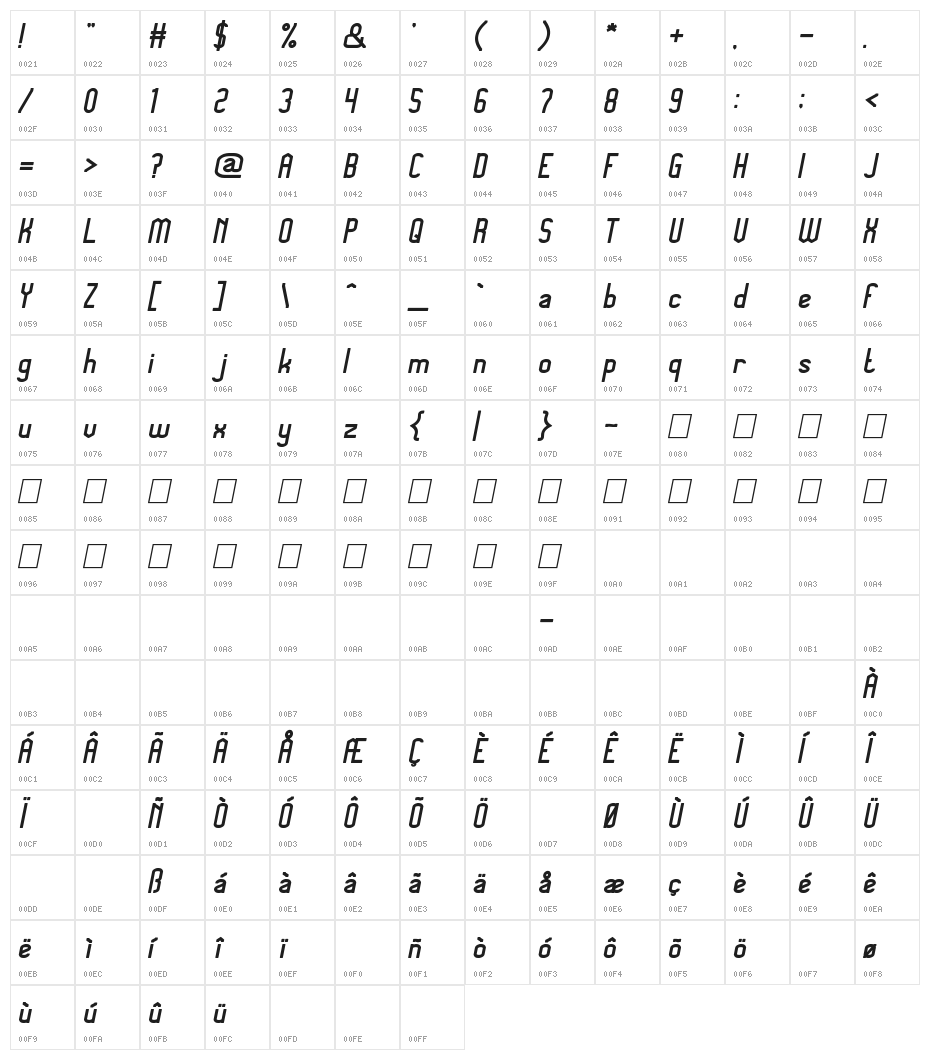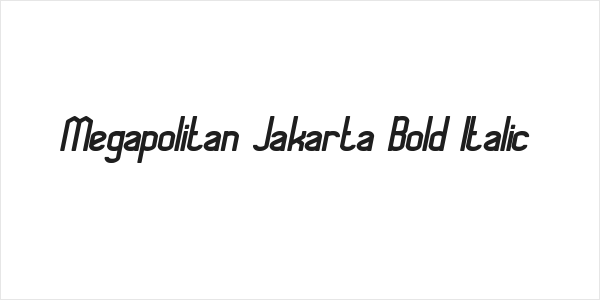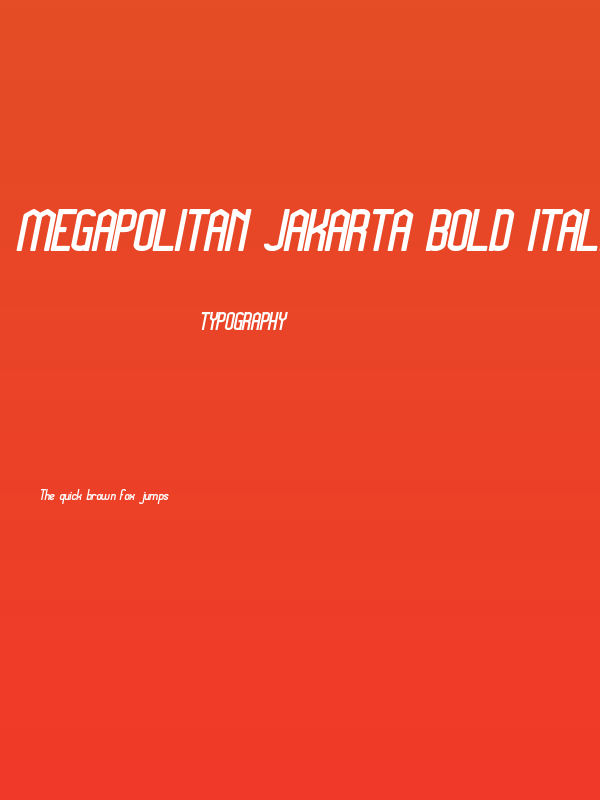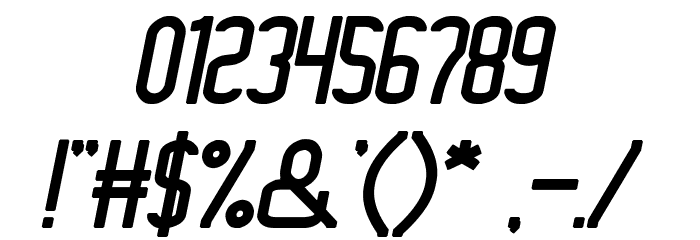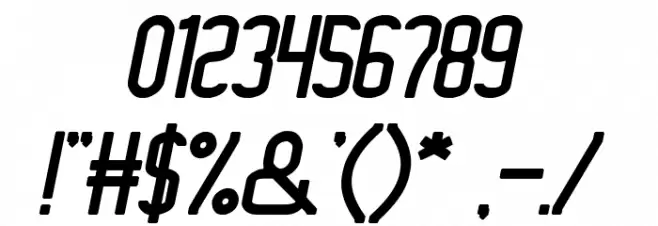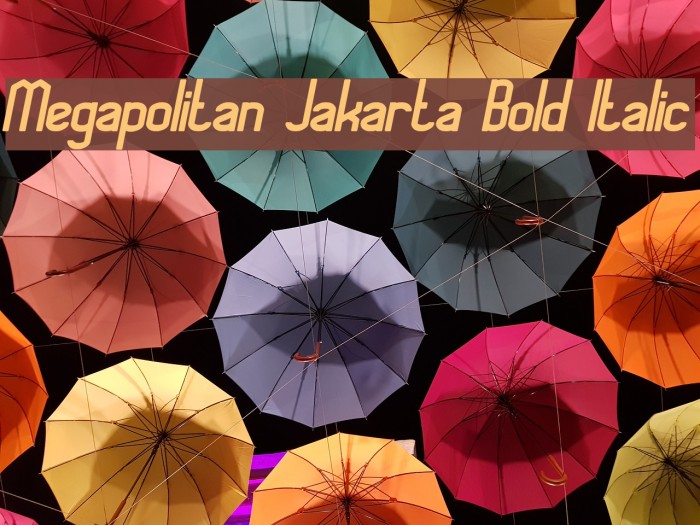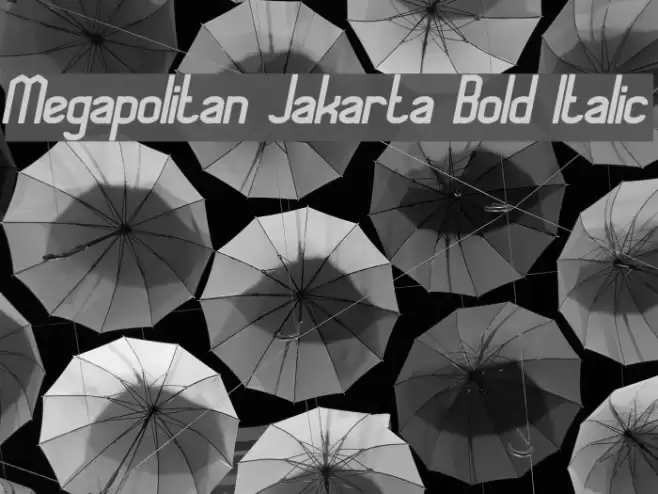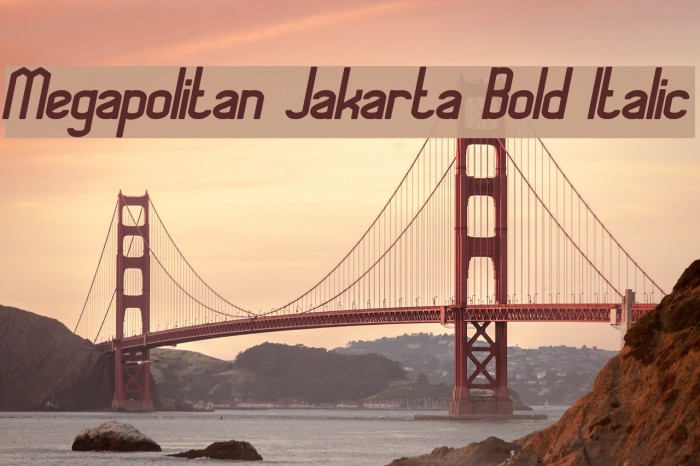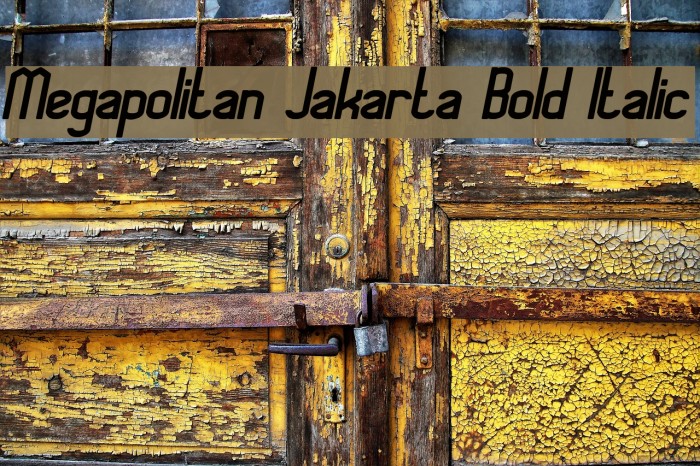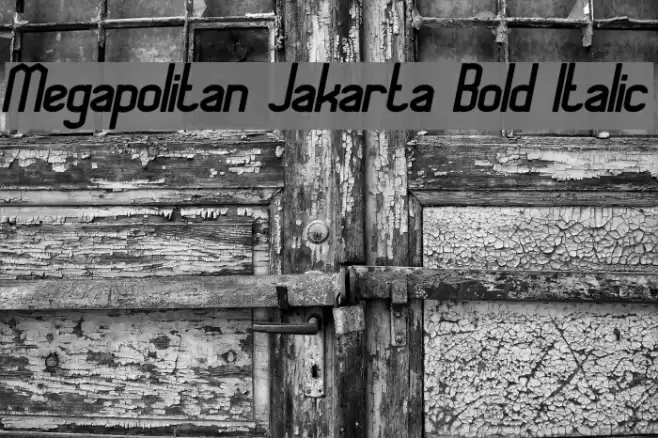
Megapolitan Jakarta Bold Italic Font
Megapolitan Jakarta Bold Italic Description
This font features a bold and italicized style with a modern and dynamic appearance. The uppercase letters are tall and slightly condensed, giving a sense of strength and stability. The lowercase letters maintain a consistent flow, enhancing readability while preserving the font's unique character. Numbers are clear and distinct, matching the overall boldness of the typeface. Special characters are well-integrated, maintaining the font's cohesive look. The italic slant adds a sense of motion and energy, making it suitable for eye-catching designs.
| Proposed Projects | Ideal for branding, sports team logos, dynamic posters, and modern web design. |